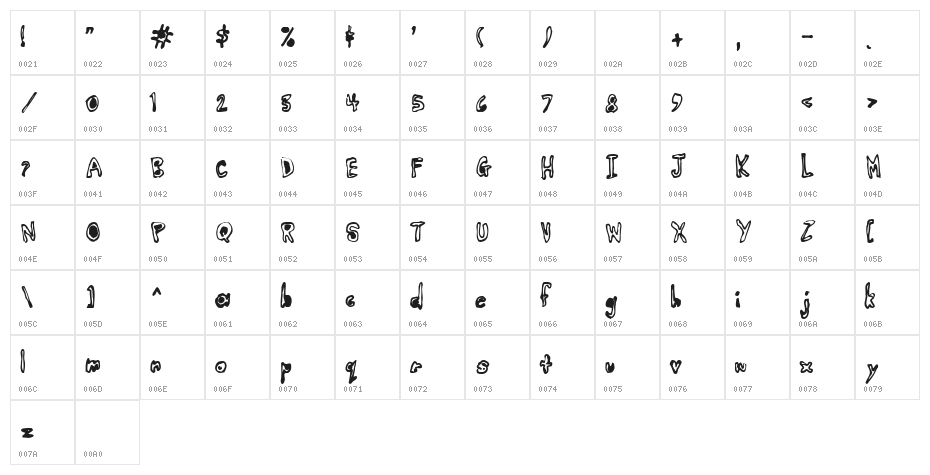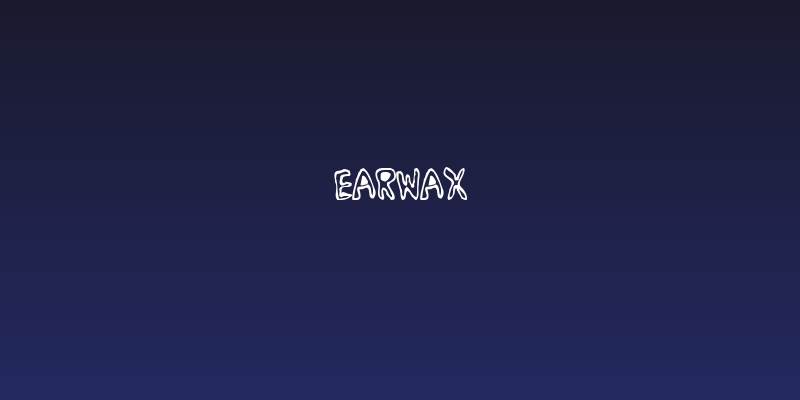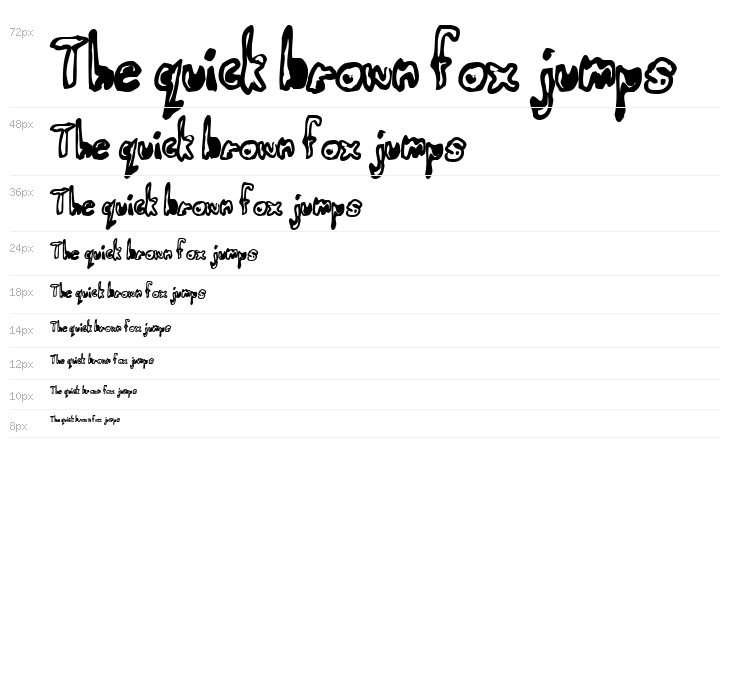
Earwax Font
Earwax Description
This font features a playful and irregular design, with each character appearing hand-drawn and slightly distorted. The letters have a bold, uneven stroke that gives them a whimsical and artistic feel. The uppercase and lowercase letters maintain a consistent style, with quirky curves and exaggerated forms. Numbers and special characters follow the same playful aesthetic, making the font suitable for creative and informal projects. Its unique style captures attention and adds a fun, dynamic element to any design.
| Overall Style | Playful, Artistic |
| Use Case | Headlines, Posters, Creative Projects |
| Proposed Projects | Ideal for children's books, comic strips, playful branding, and creative posters. |